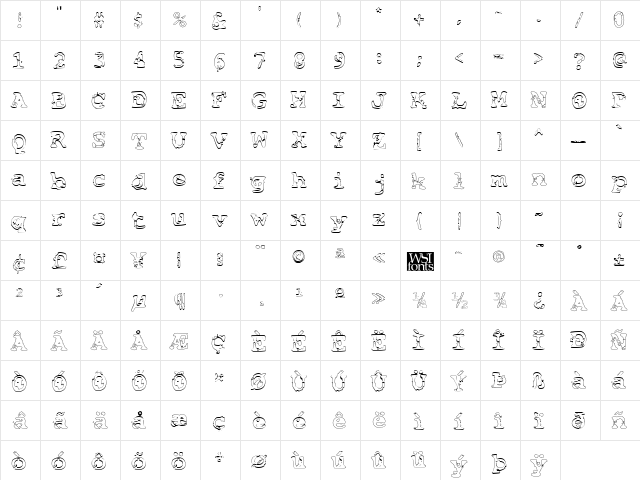
BasicGrungeHollow Regular
Design Context for BasicGrungeHollow Typeface
BasicGrungeHollow embraces imperfection — its rough, textured character adds raw authenticity to designs that want to feel lived-in and unconventional.
A strong fit for alternative music projects, graffiti-adjacent design, and anything that deliberately resists polish.
Pro Tip: Use BasicGrungeHollow at larger sizes where the texture and irregularity of each letterform can be clearly seen — it loses its character at small sizes.